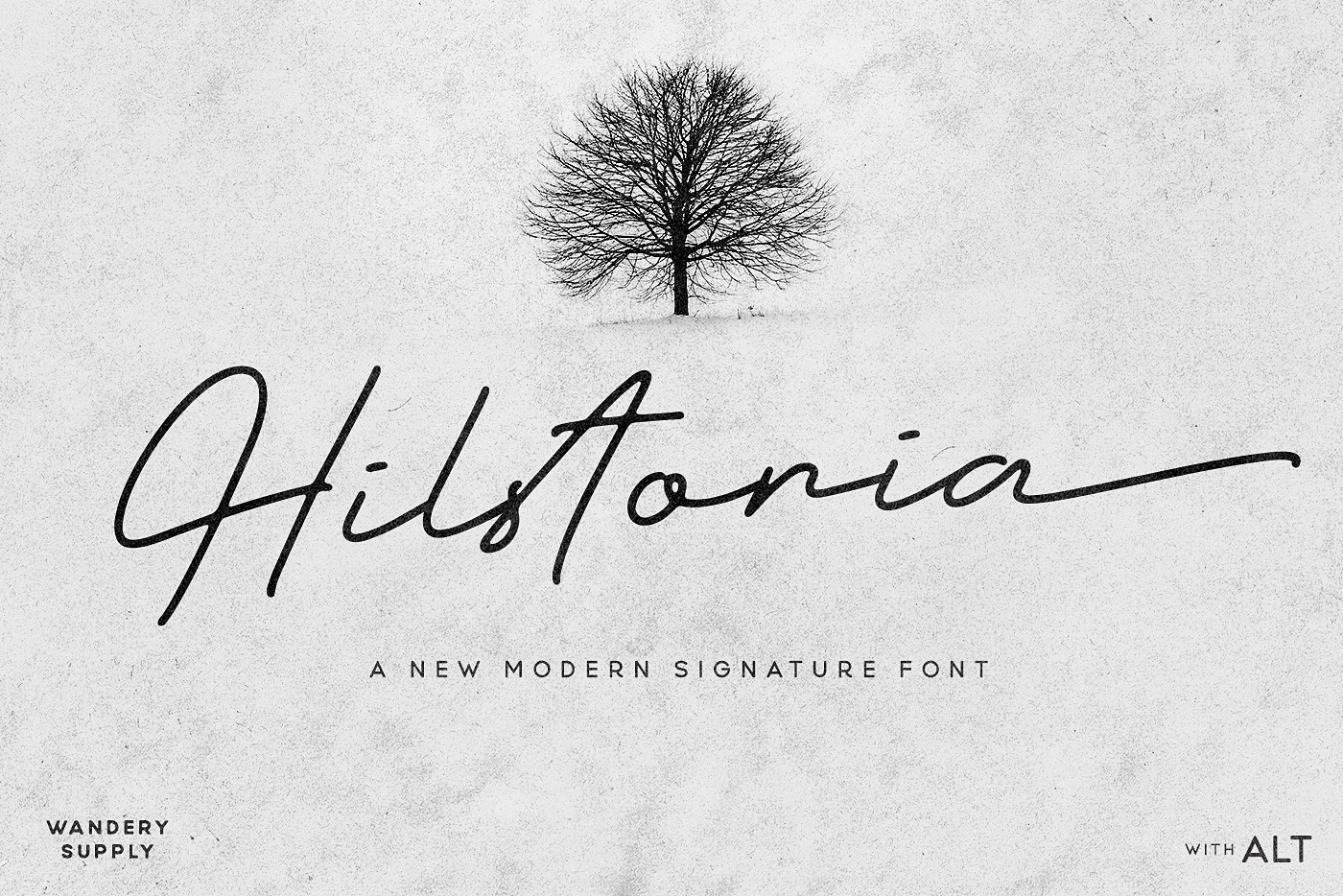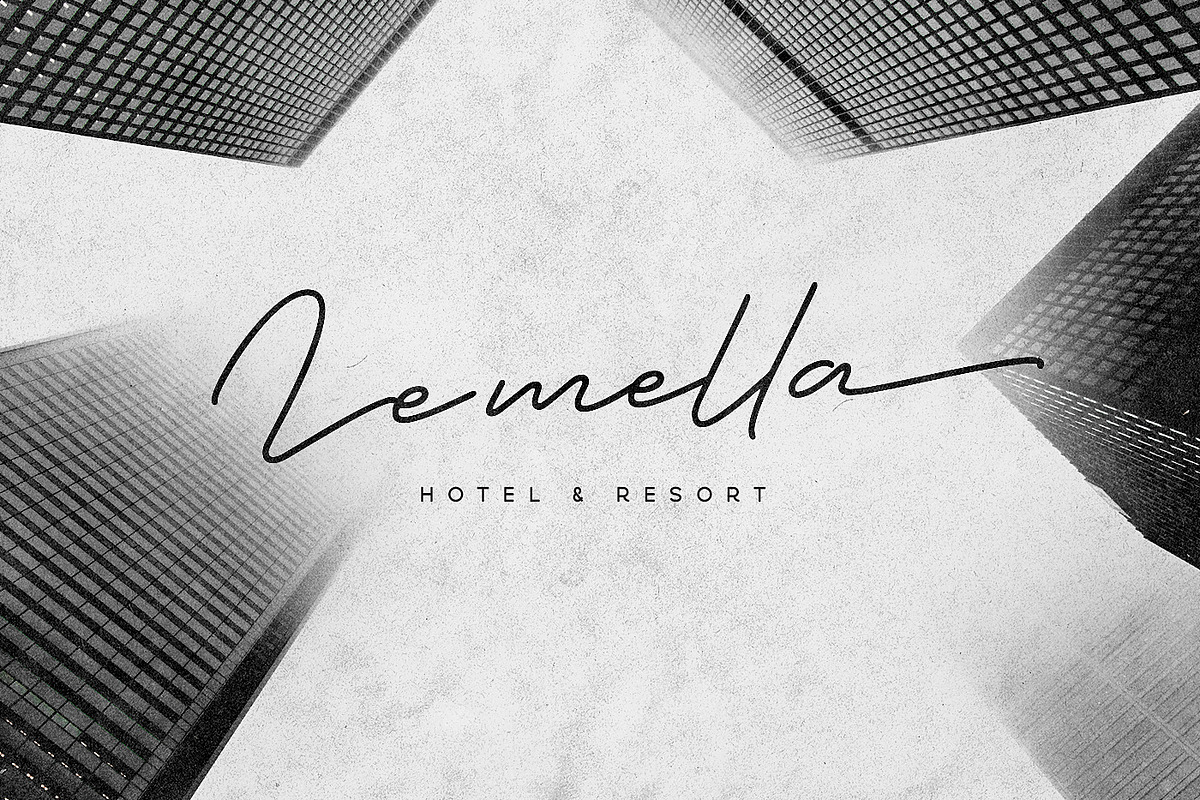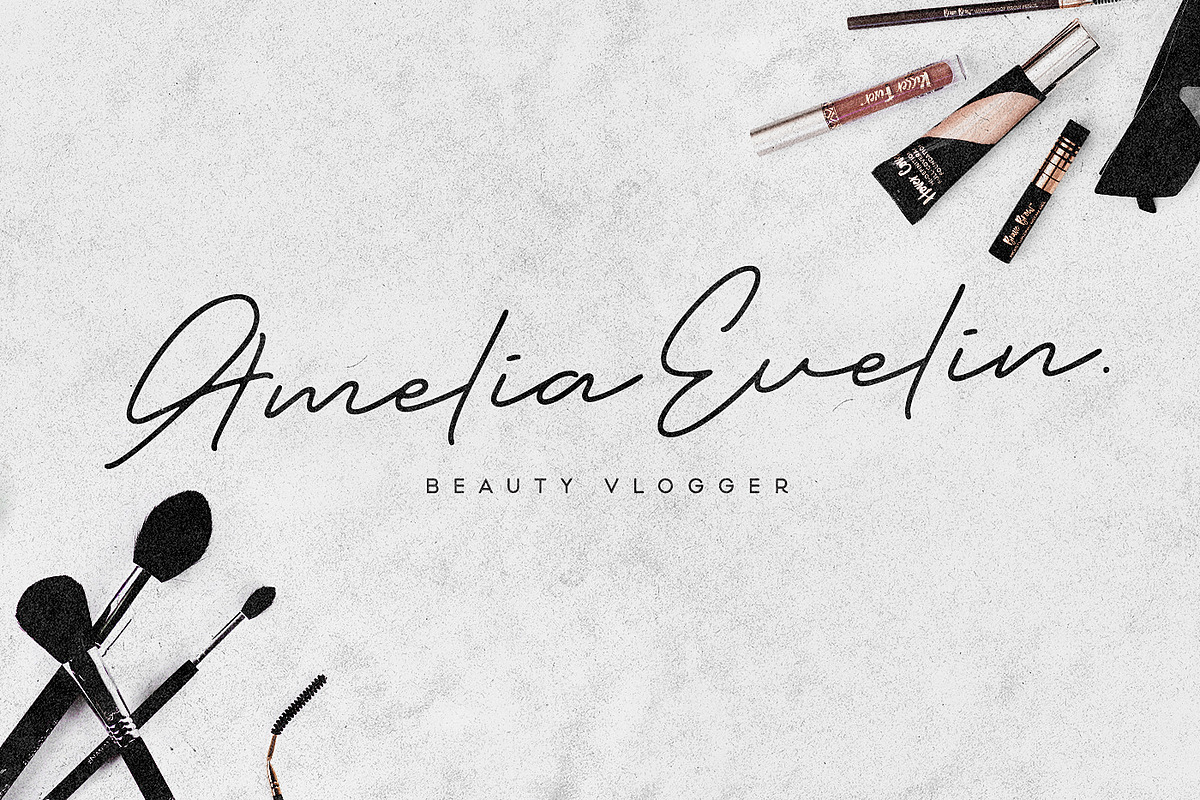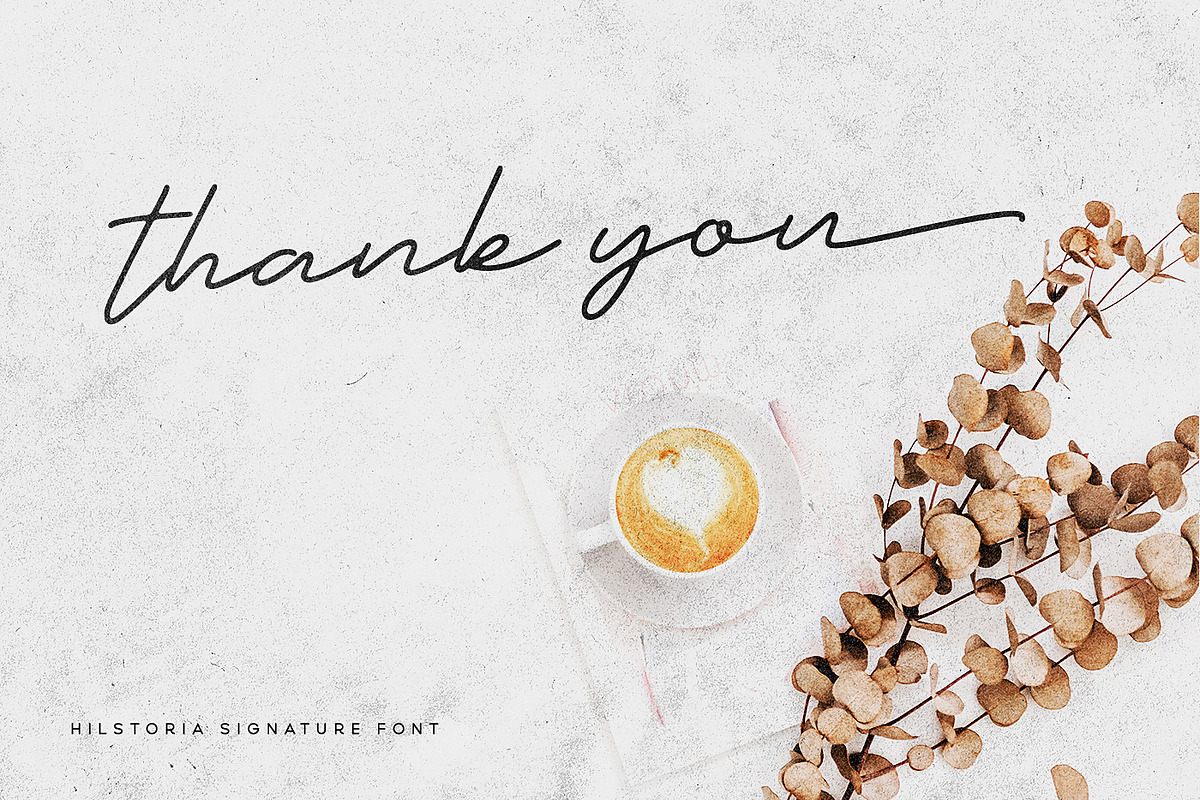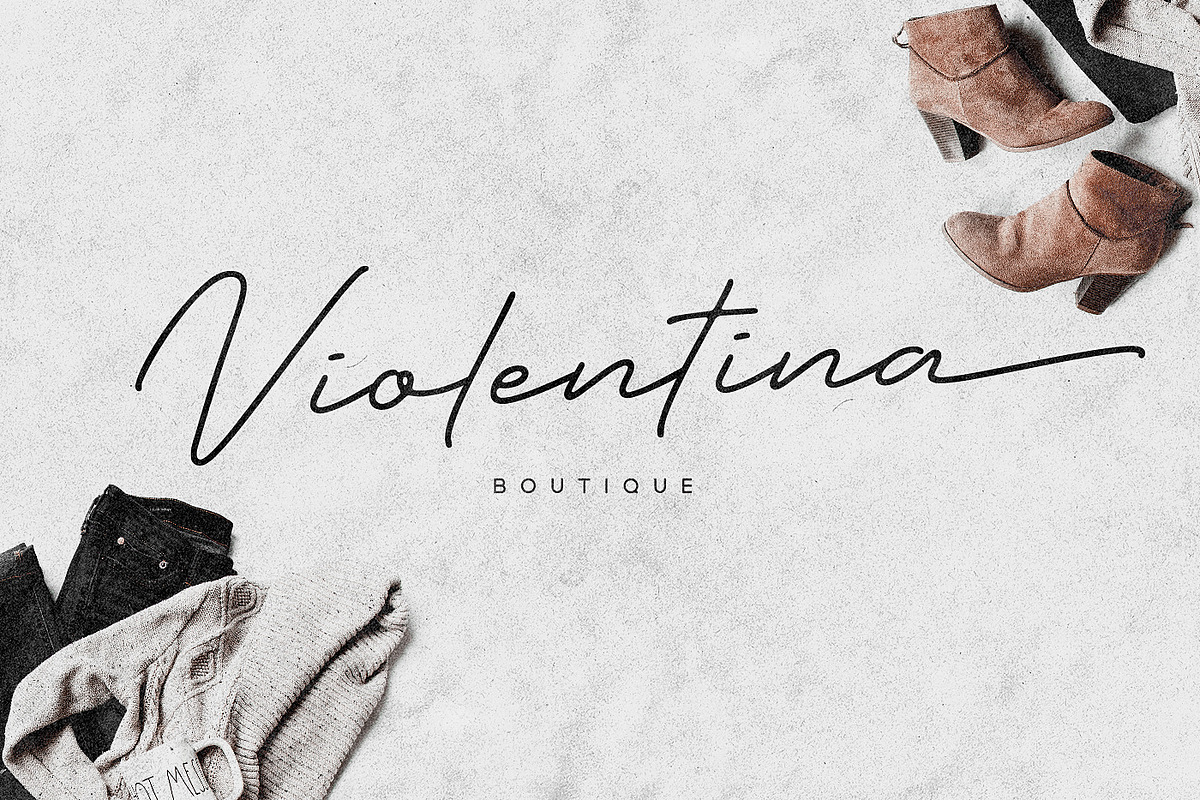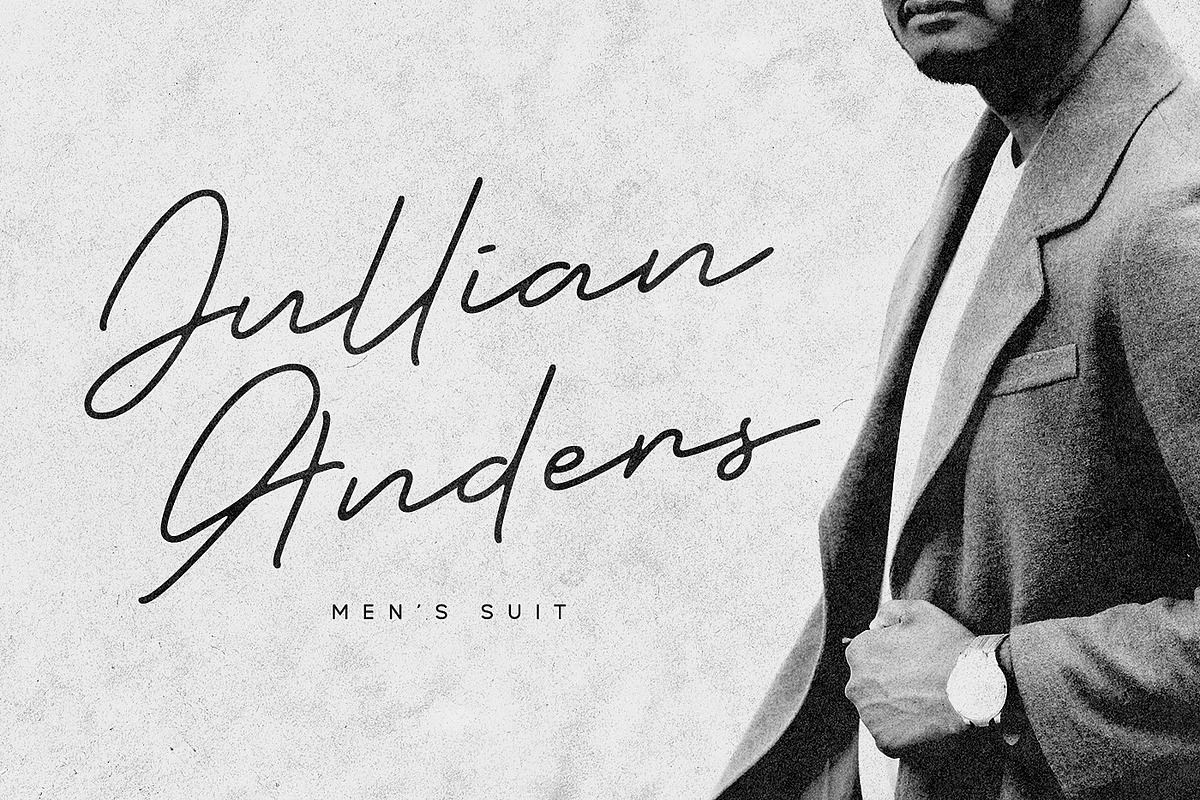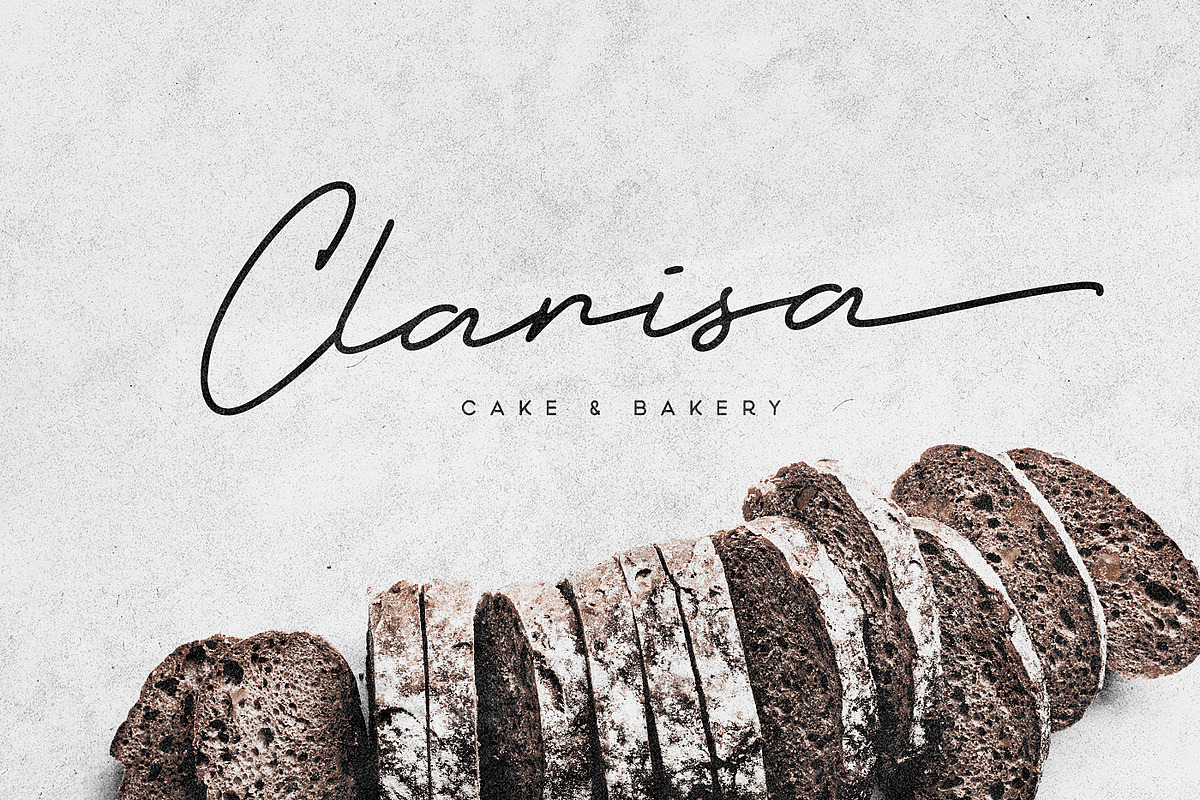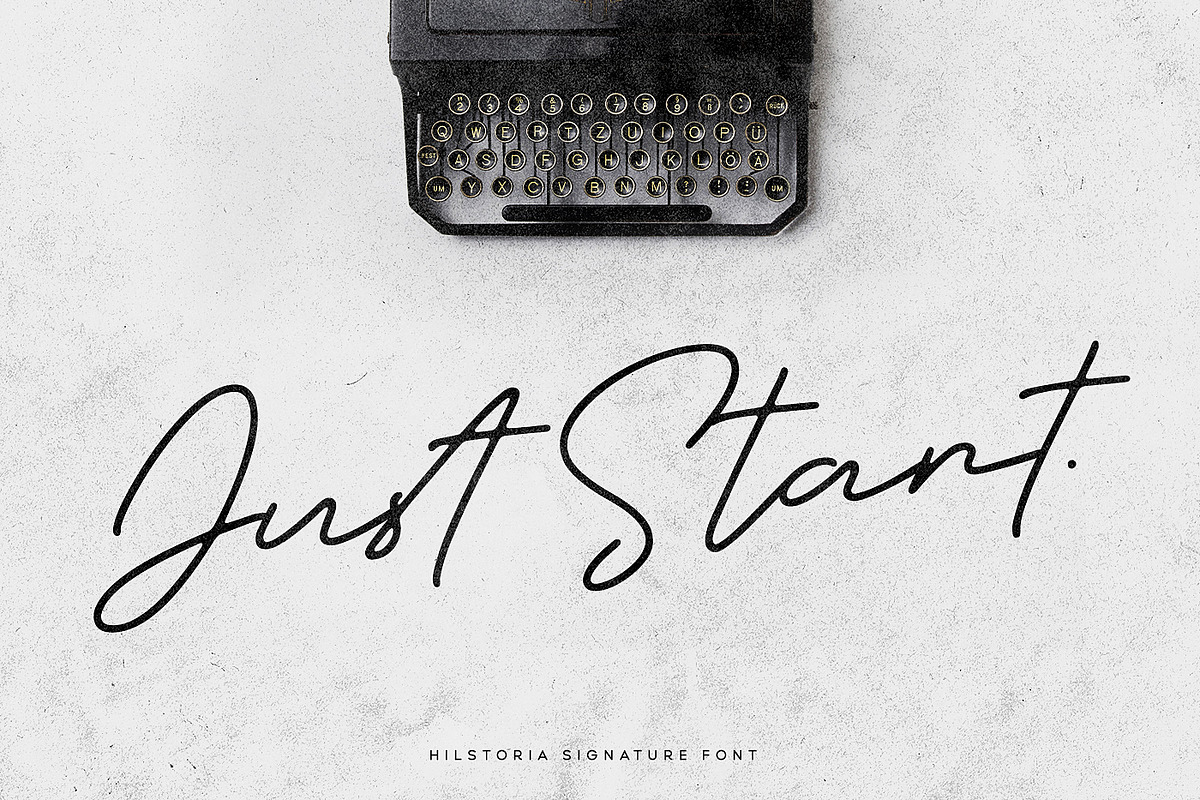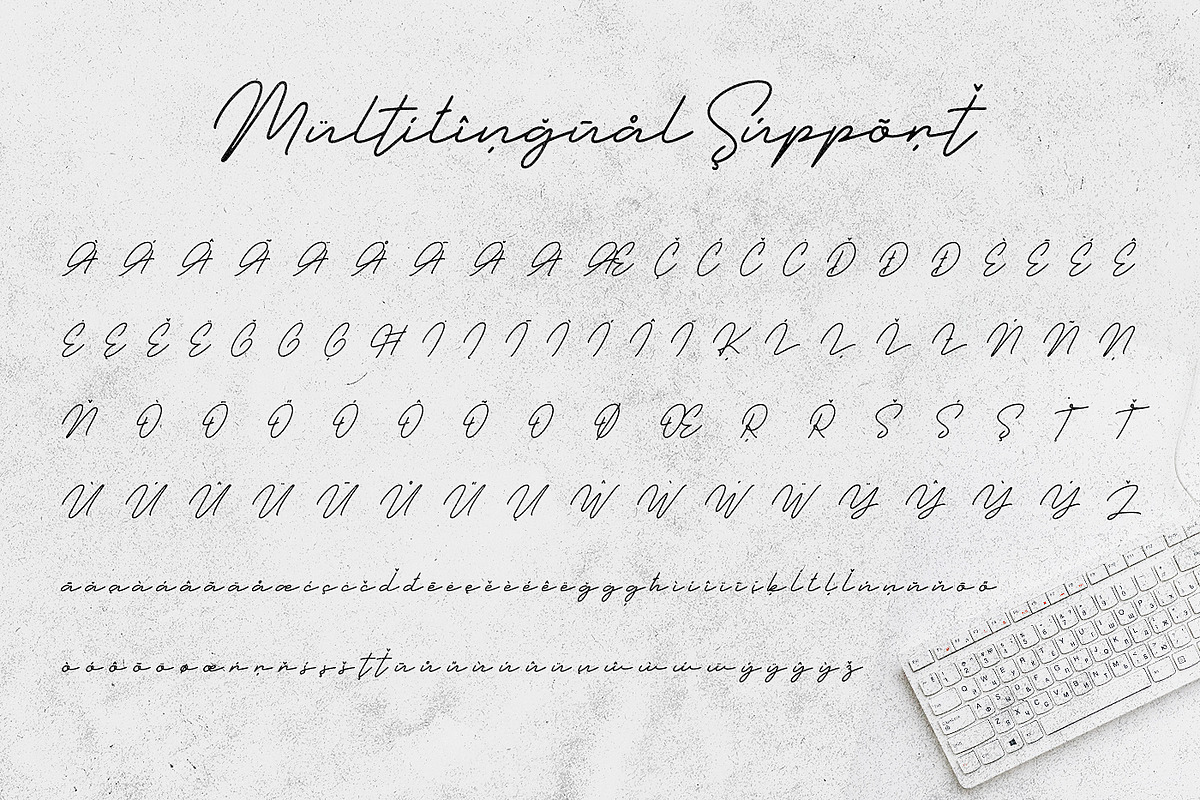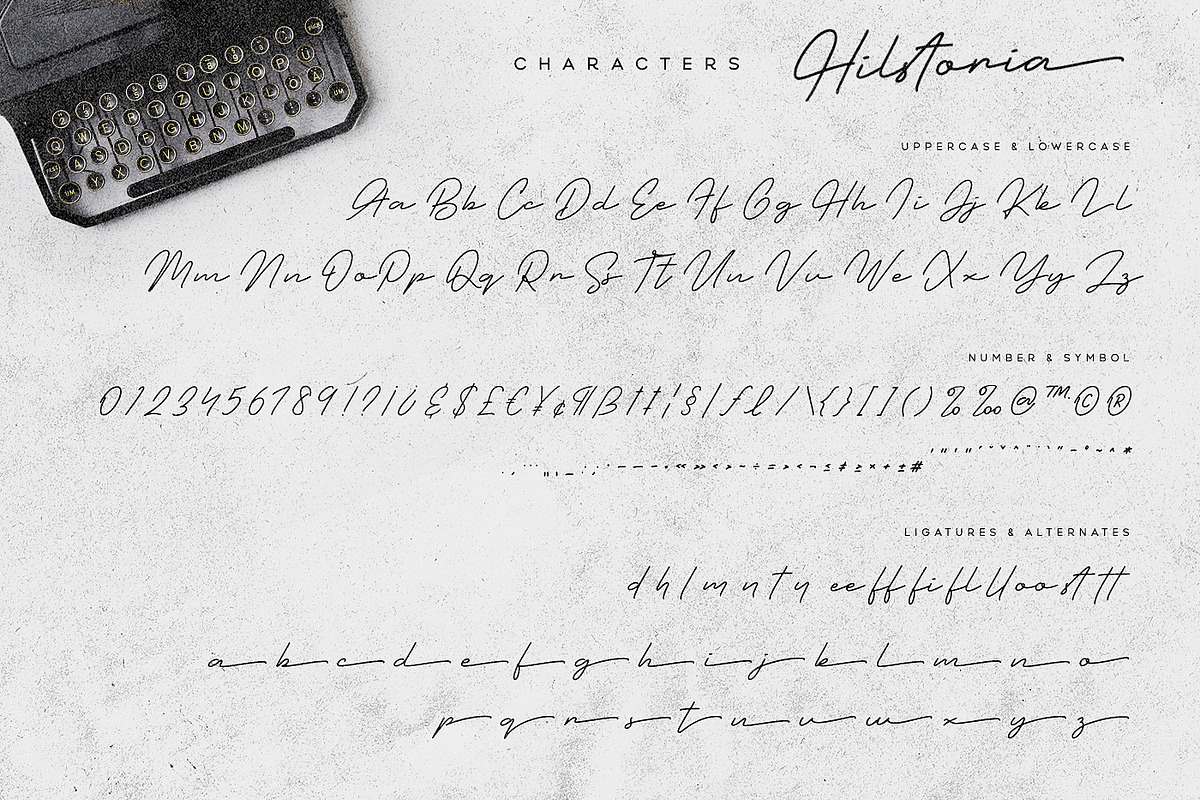
Hilstoria Signature Font
Introducing
Hilstoria Modern Signature Typeface
Hilstoria Signature is a modern and elegant handwritten signature script typeface. This another collection of script is perfect for your next personal branding project. Hilstoria Signature have smooth and clean rounded edges, so this typeface gives an authentic handcrafted feel style.
I created this script with plenty Alternates Characters and Ending Swashes Characters. Hilstoria Signature is perfect choice for people looking for clean, modern, minimalist, elegant, beauty design styles.
- Uppercase Character
- Lowercase Character
- Alternates Character
- Finalize Lowercase Character
- Punctuation & Symbol
- International Language
- Open Type Features